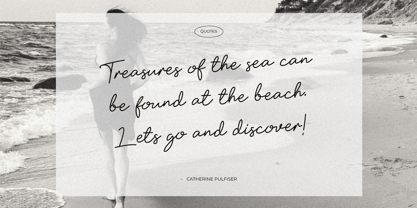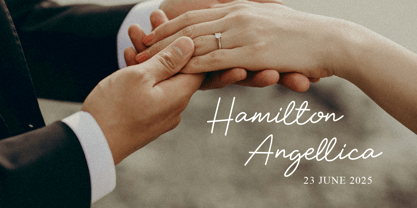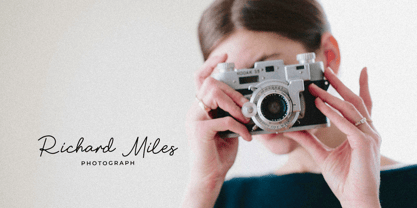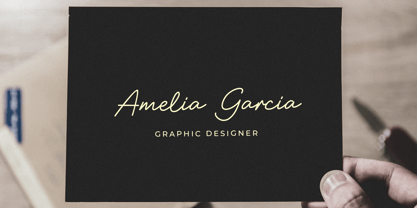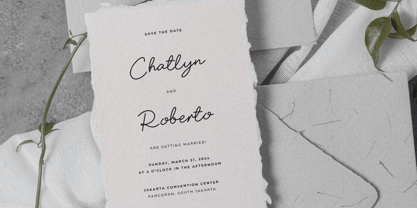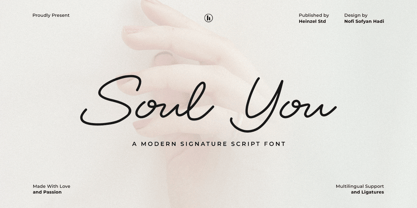
Soul You
by Heinzel Std
The Soul You Font Family was designed by Nofi Sofyan Hadi and published by Heinzel Std. Soul You contains 1 styles. More about this family
Soul You is a modern signature script font that brings elegance and personal charm to your designs. With smooth curves, natural strokes, and graceful letterforms, this font is perfect for logos, branding, invitations, social media, and fashion-related projects. Soul You offers a handwritten feel that adds authenticity and sophistication to any visual identity. It includes multilingual support and ligatures for enhanced versatility.